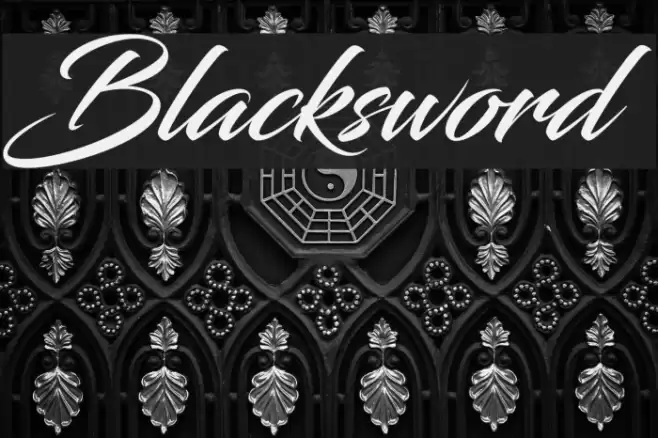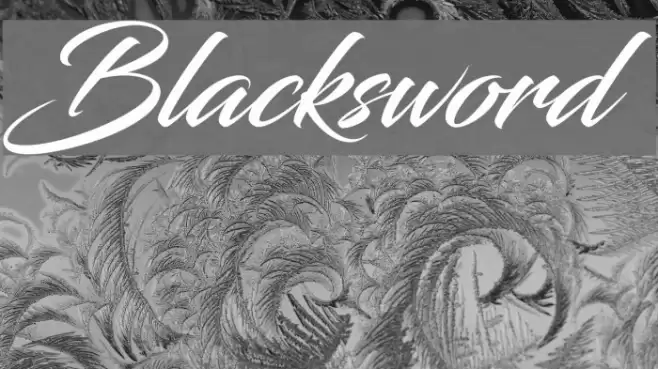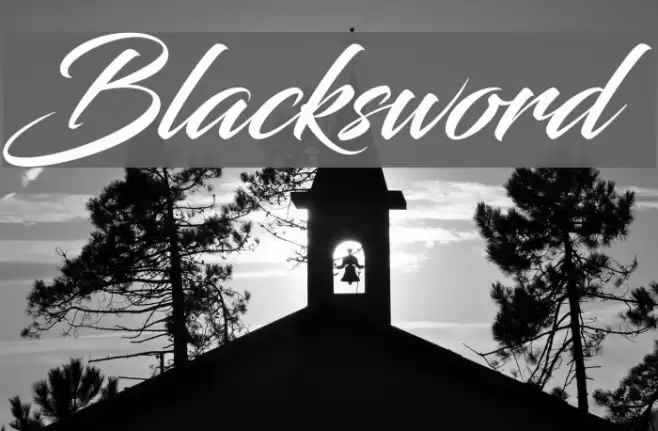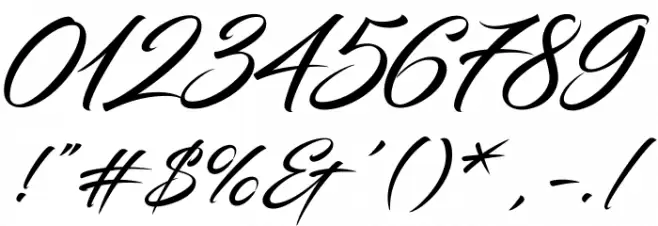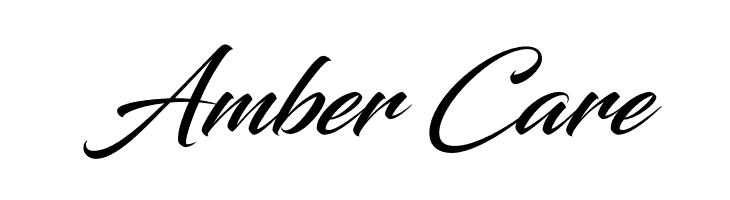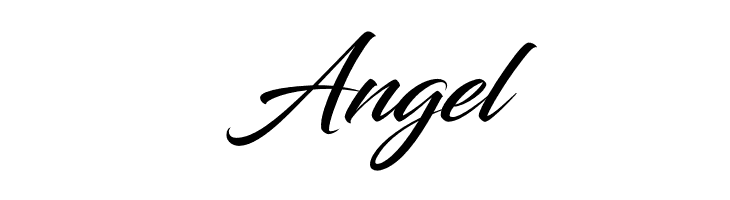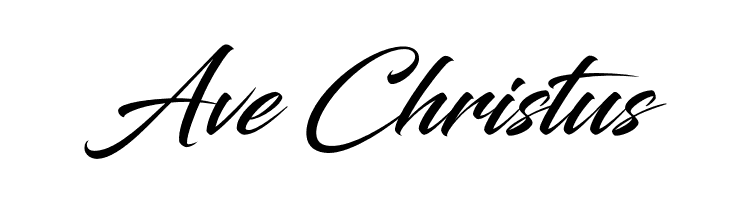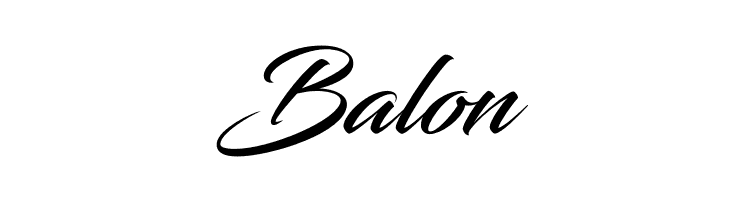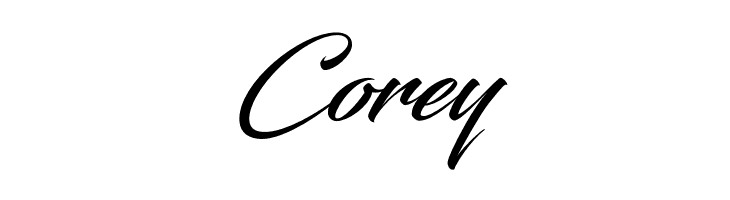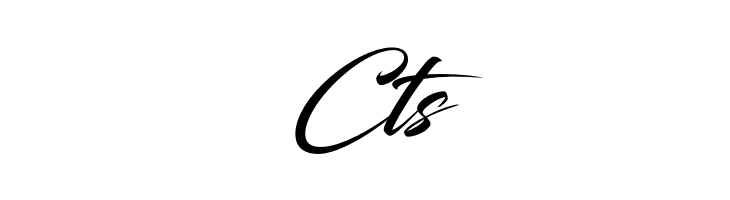
Blacksword Font
Blacksword Description
This font exudes elegance and sophistication with its flowing, cursive style. The characters are intricately designed, featuring smooth curves and graceful lines that mimic the fluidity of handwriting. The uppercase letters are particularly striking, with elaborate flourishes that add a touch of drama. The lowercase letters maintain a consistent style, offering a harmonious blend of formality and flair. Numbers and special characters are crafted with the same attention to detail, ensuring a cohesive look across all text. This font is ideal for projects that require a touch of elegance and personal expression.
A sophisticated, cursive font with elegant, flowing lines from Calligraphic fonts.
- Overall Style: Elegant